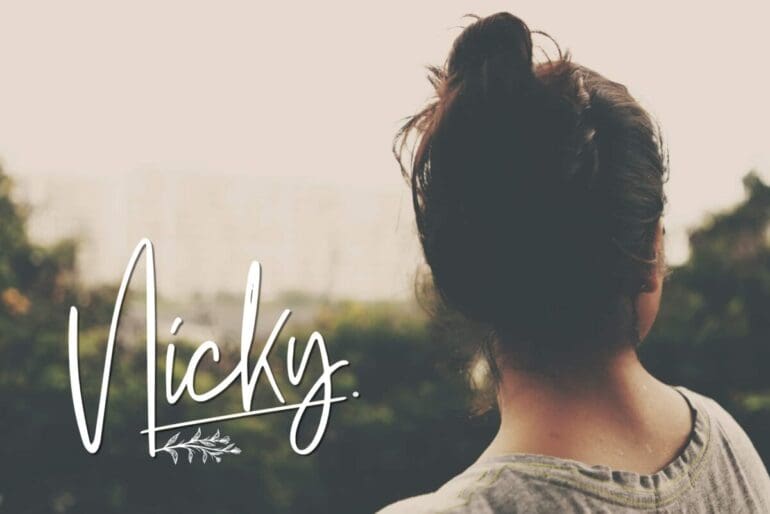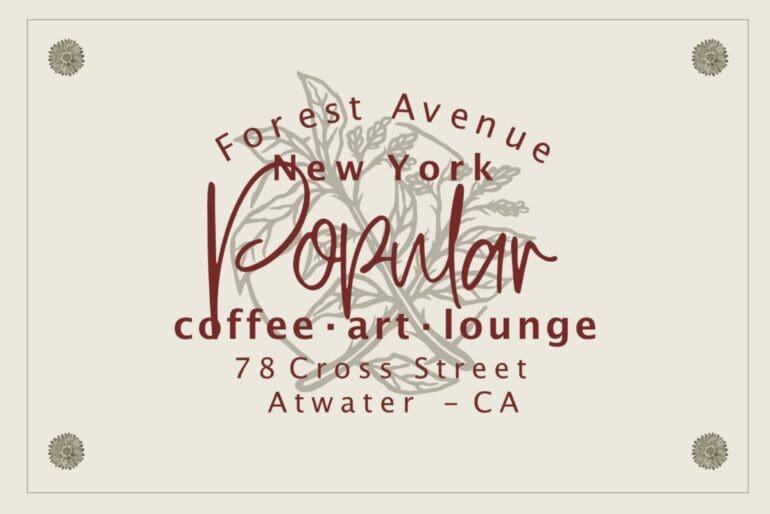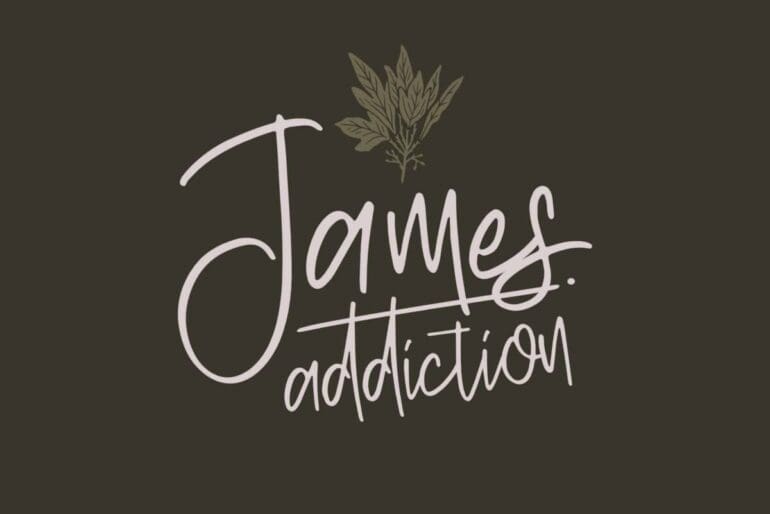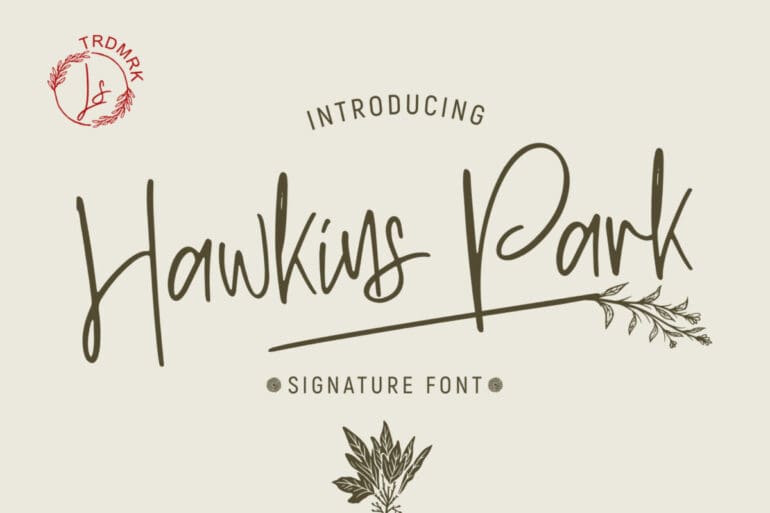
Hawkins Park Font
Hawkins park Script Font. This pair was inspired by the retro poster design that I saw on some coffee shop, It was crafted by hand especially to add a natural handmade feeling in its brand identity than I make it clean with pentool.